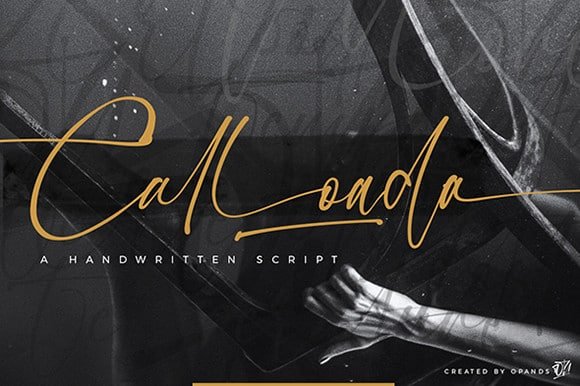
Calloada Script Font
Calloada is an incredibly classy and relaxed handwritten script font. This font is PUA encoded which means you can access all of the glyphs and swashes with ease!
It features a varying baseline, smooth lines, gorgeous glyphs and stunning alternates.Fall in love with its versatile style and use it to create spectacular designs!
Calloada font will be great for any projects including : branding, logo, stationery, business card, signage, flyer, brochure etc. Almost all industries will be match for this typeface: wedding, events, real estate, architect, law firm, florist, gardening, makeup artist, travel, hotel, musician etc.